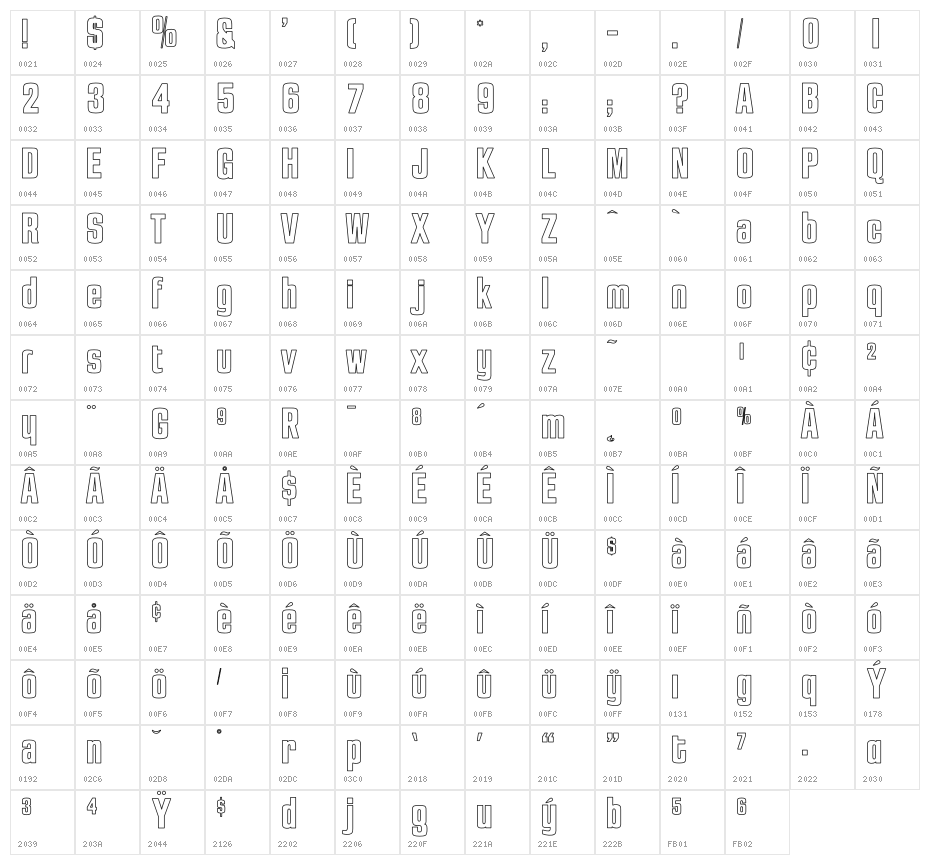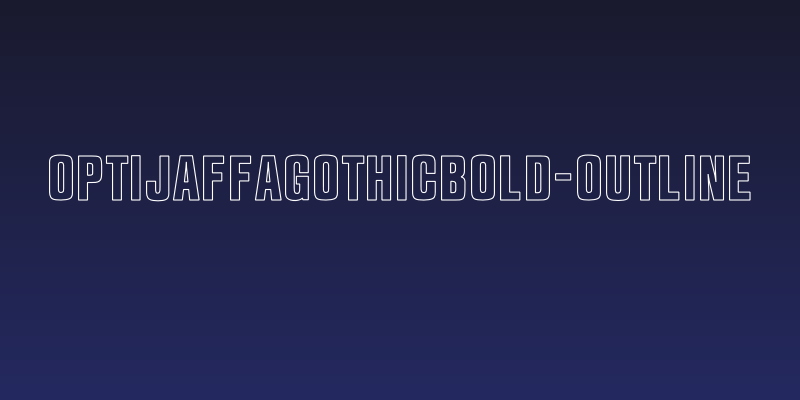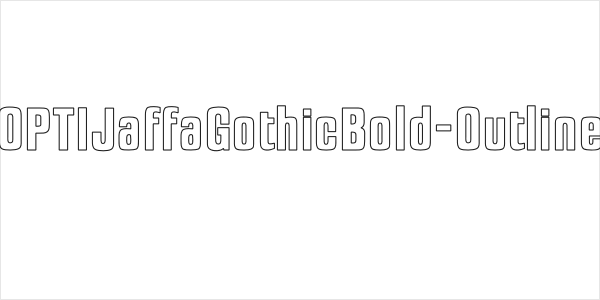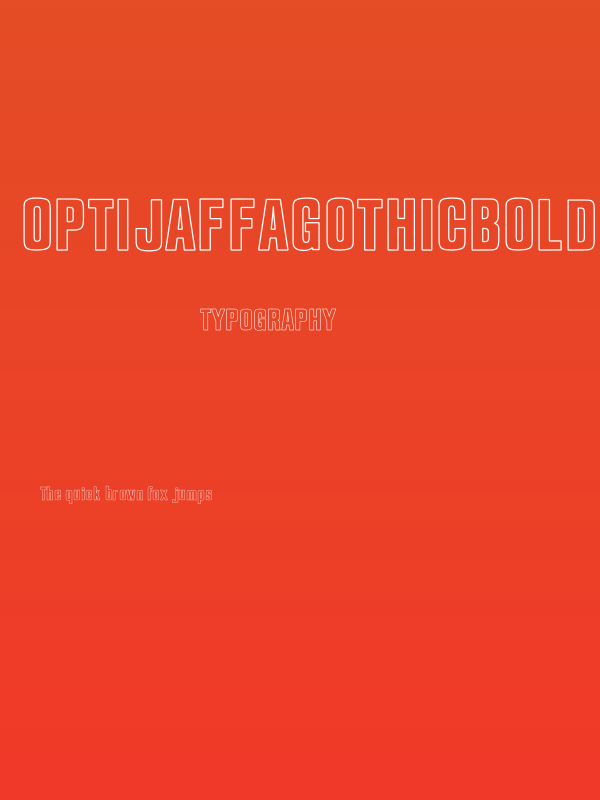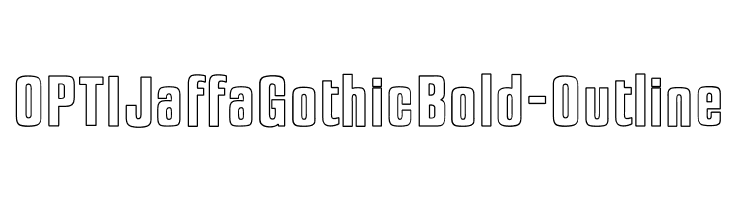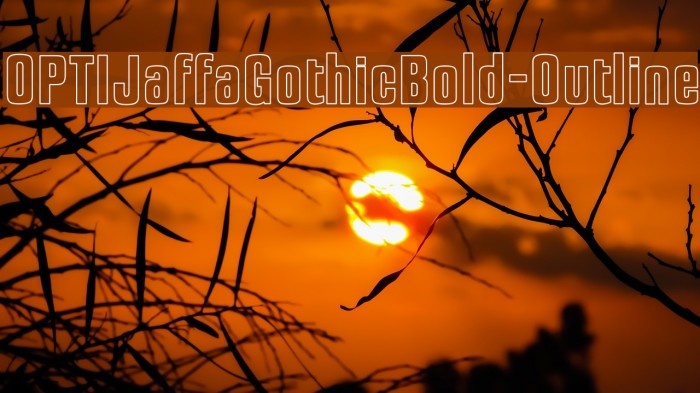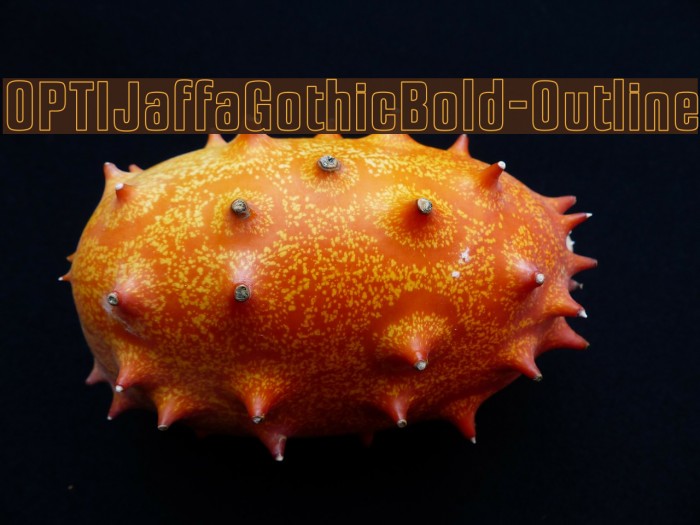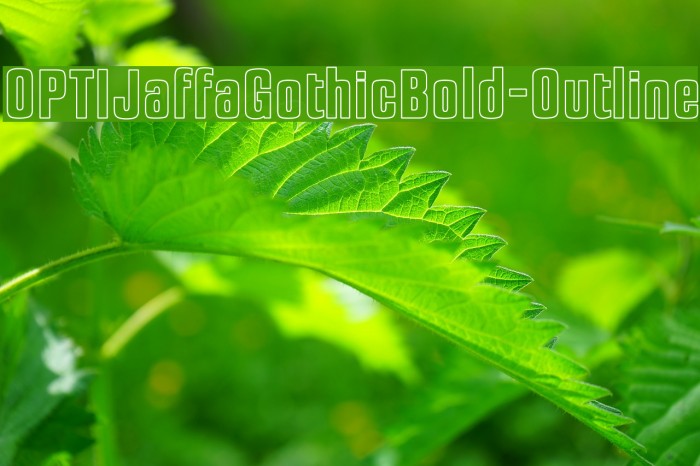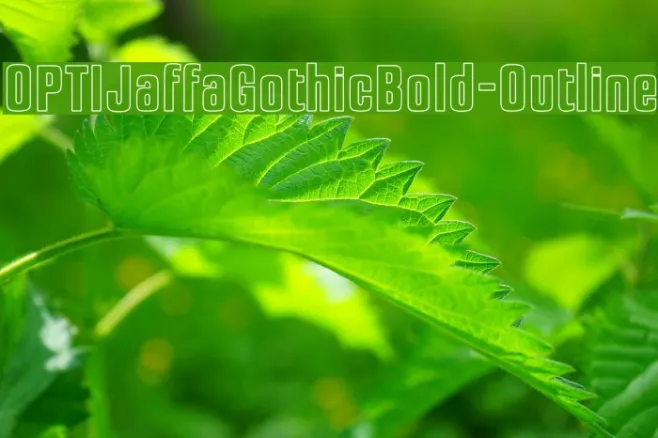
OPTIJaffaGothicBold-Outline Font
OPTIJaffaGothicBold-Outline Description
This font features a bold, outlined style that gives it a striking and modern appearance. The uppercase and lowercase letters are uniformly designed with a geometric precision, creating a sense of balance and harmony. The numbers and special characters maintain this consistency, ensuring a cohesive look across all elements. The outline effect adds a layer of depth, making the characters stand out without overwhelming the viewer. This font is ideal for designs that require a bold statement while maintaining a clean and professional look.
| Proposed Projects | Ideal for branding, posters, headlines, and any design requiring a bold, modern statement. |